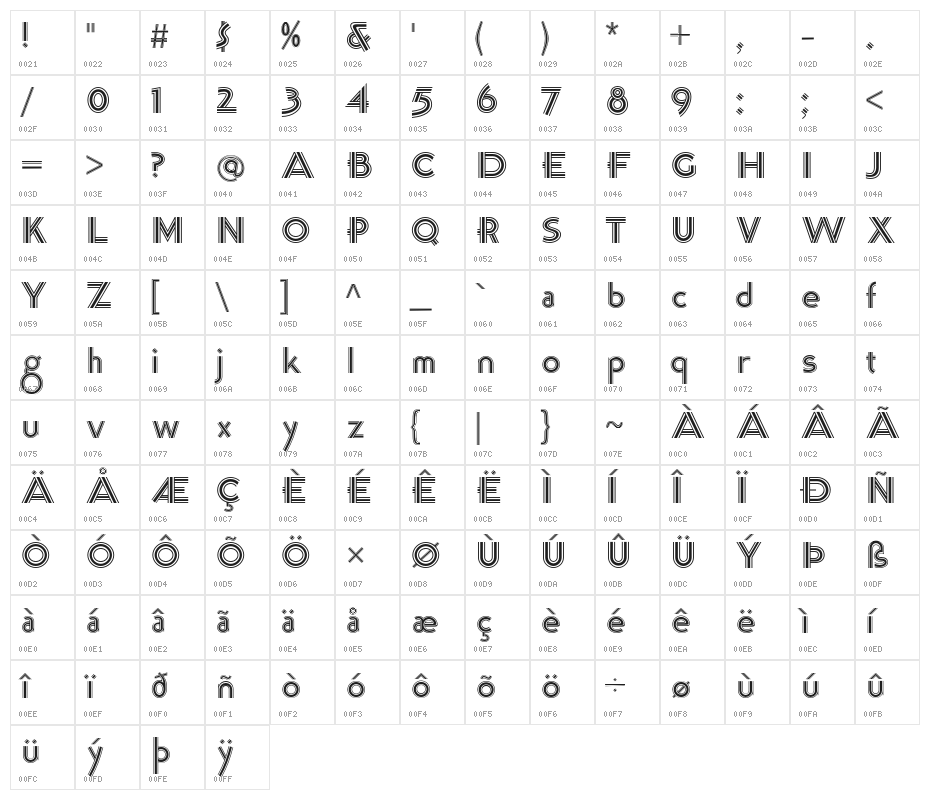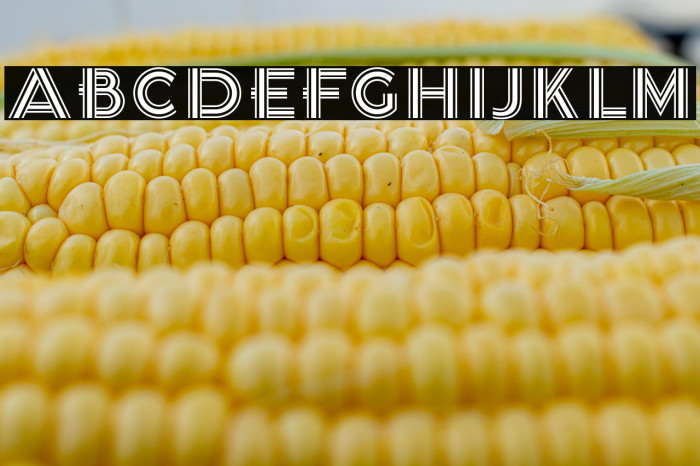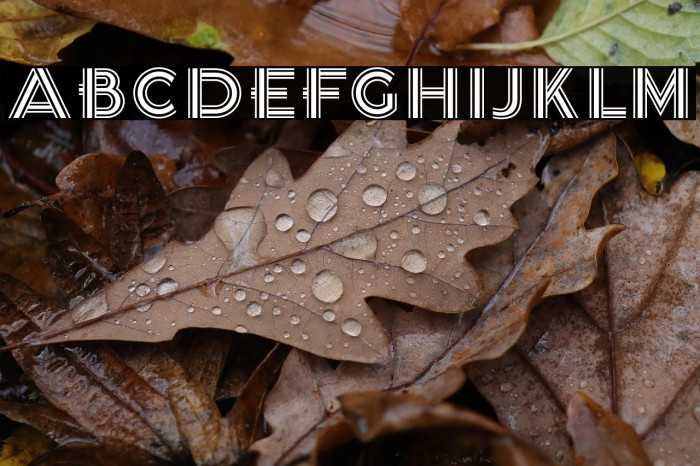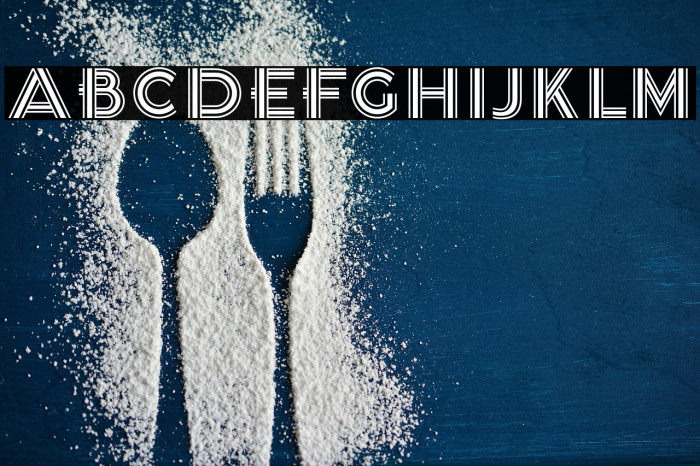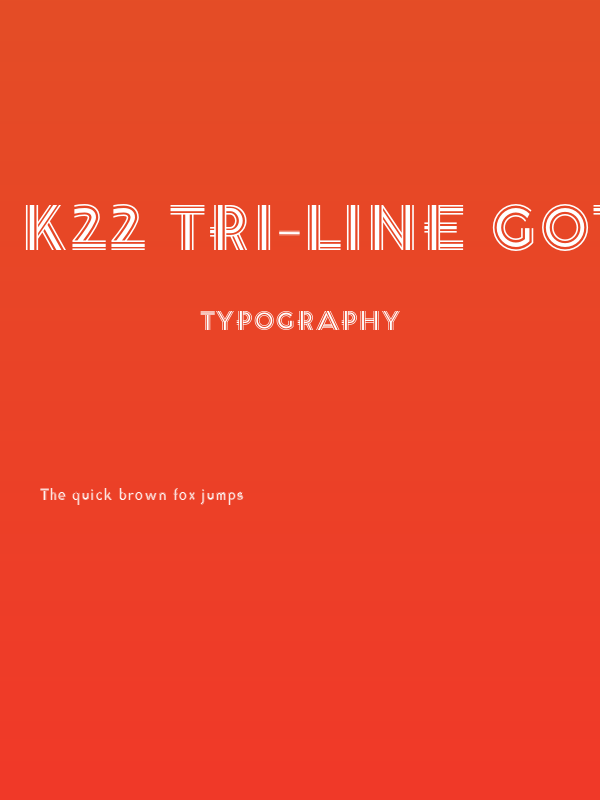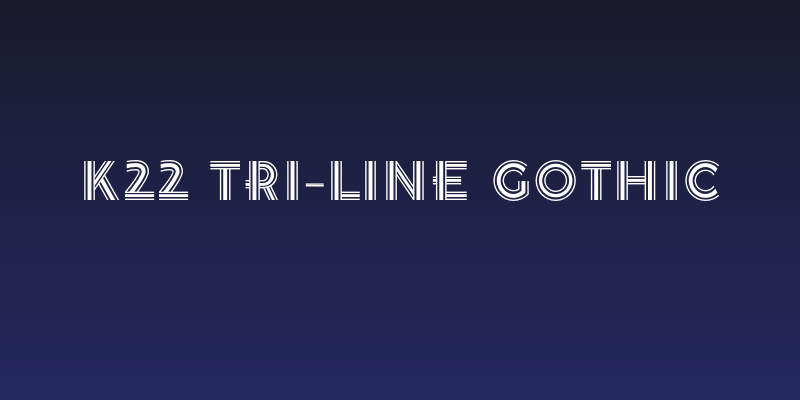
K22 Tri-Line Gothic Font
K22 Tri-Line Gothic Description
This font features a unique tri-line design that gives it a modern and geometric appearance. Each character is composed of three parallel lines, creating a sense of depth and dimension. The uppercase letters are bold and striking, while the lowercase letters maintain a consistent style with slightly softer curves. The numerals and special characters follow the same tri-line pattern, ensuring uniformity across all glyphs. This font is ideal for projects that require a contemporary and eye-catching look, making it suitable for branding, advertising, and digital media.
| Proposed Projects | Ideal for branding, advertising, digital media, and modern design projects. |